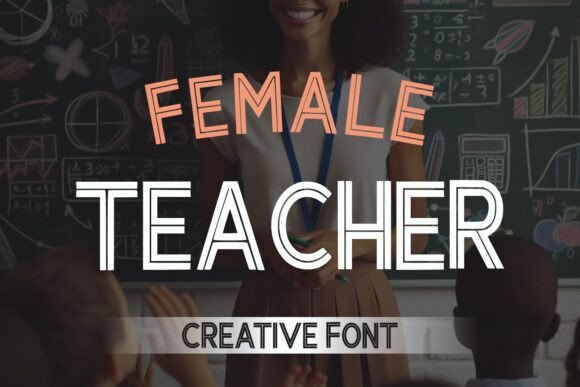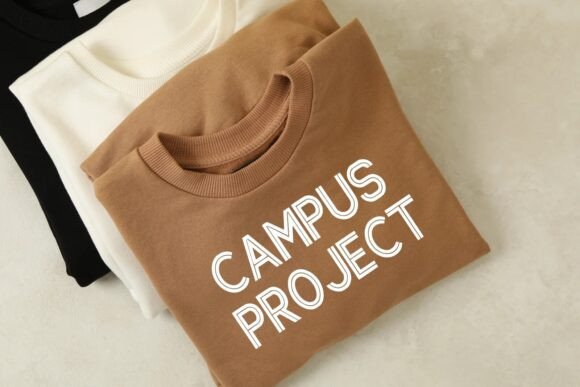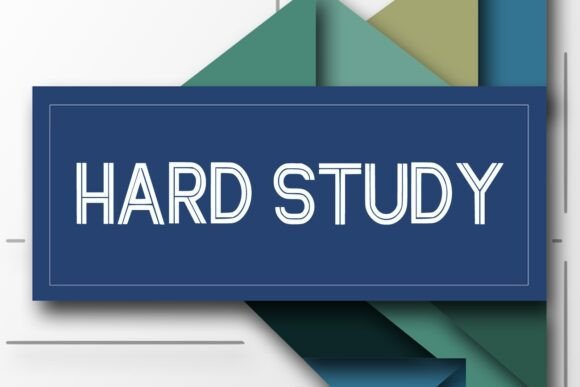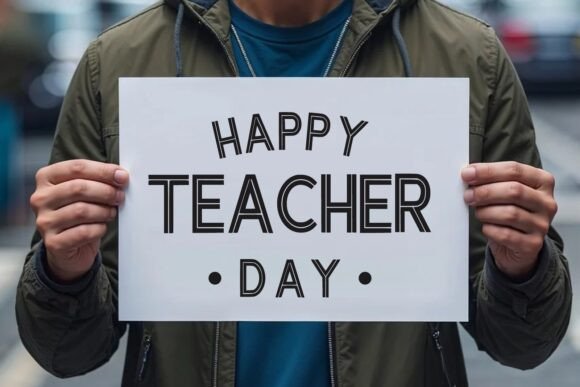
Female Teacher Font
About the Female Teacher Font
Discover the charm of Female Teacher Font. This font is a perfect blend of modern aesthetics and classic appeal. Female Teacher is an elegant display font. Whimsical and a bit quirky, this font will brighten up each of your designs. Add it confidently to your projects, and you will love the results.
Female Teacher excels in headlines, short text blocks, and branding applications where a touch of playful elegance is desired. It works well for children’s books, invitations, or packaging for products targeting a sophisticated yet approachable audience. Avoid using it for body text or long paragraphs; its whimsical nature can become overwhelming and hinder readability.
Consider pairing it with a clean sans-serif like Lato or Open Sans for a balanced contrast, or a classic serif such as Garamond or Merriweather for a more traditional feel. For a more playful effect, a rounded sans-serif like Bebas Neue could complement its quirky charm.
Its core personality is friendly and approachable, yet sophisticated. This makes it ideal for brands aiming for a balance of professionalism and approachability, conveying a sense of trust and expertise with a lighthearted touch.
Female Teacher Font Usage Examples
Female Teacher Font Example